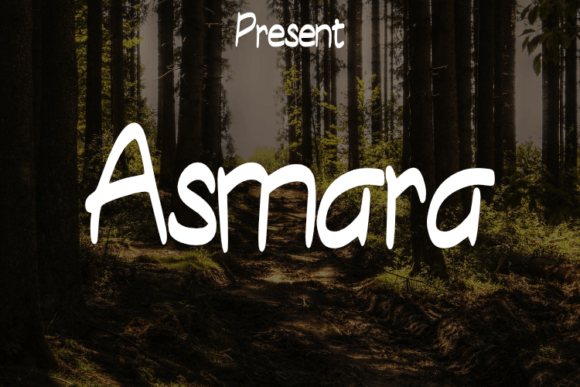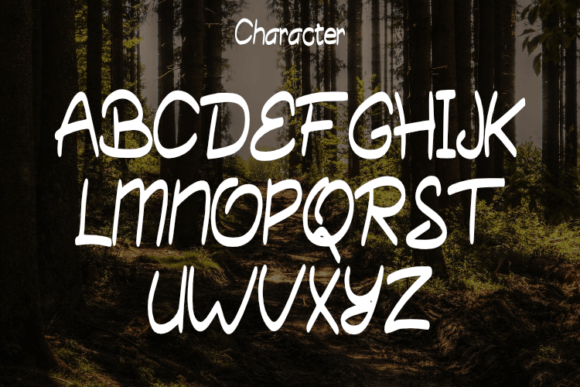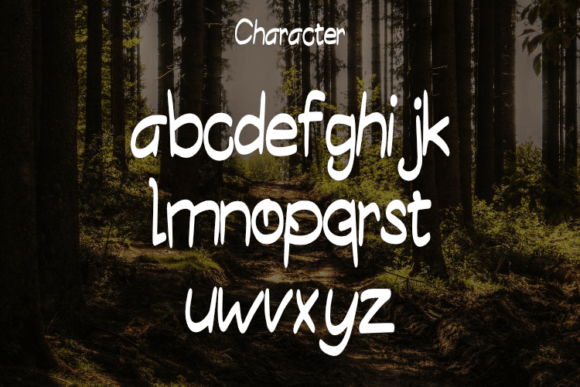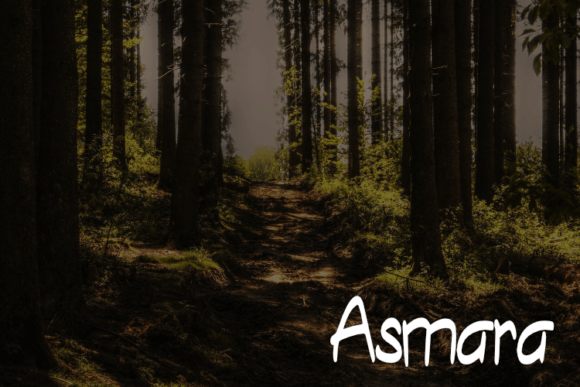
About Asmara Font
**Asmara** is a captivating script typeface characterized by its simple yet modern style. Its sleek design and elegant curves make it an excellent choice for projects that require a touch of sophistication and luxury. Whether you’re creating an elegant and luxurious logo, designing book or movie titles, working on fashion brands, magazines, clothing, or crafting inspirational quotes, **Asmara** adds an air of refinement and grace to your designs, making them effortlessly chic and stylish.
**Simple Elegance**: **Asmara** embodies the essence of simple elegance. Its clean and minimalist style exudes a sense of sophistication and refinement. The font’s graceful letterforms and smooth lines create a harmonious and balanced look, ensuring it appears both modern and timeless. Its simplicity is a key element that enhances the overall elegance of the text, making it visually appealing and classy.
**Modern Appeal**: While **Asmara** embraces a classic elegance, it also possesses a modern appeal. Its contemporary design elements give it a fresh and current look, making it suitable for modern design trends. The font strikes a perfect balance between classic beauty and modern aesthetics, ensuring it feels relevant and stylish in a variety of contexts.
**Versatile Application**: **Asmara** is versatile and adaptable, allowing it to complement a wide range of design projects. Whether used for logos, branding materials, book covers, movie titles, fashion-related designs, magazines, or inspirational quotes, the font seamlessly integrates into different applications. Its ability to enhance various design elements makes it a versatile choice for creative projects, ensuring a cohesive and polished result.
**Elegant and Luxurious Aura**: **Asmara** exudes an elegant and luxurious aura, elevating the overall perception of your designs. Its refined and graceful appearance gives off a sense of opulence and sophistication, making it perfect for projects that demand a touch of luxury. The font’s elegant and luxurious aura adds a premium quality to your designs, making them stand out with a sense of exclusivity and style.
In summary, **Asmara** is more than just a font; it’s a symbol of timeless elegance and modern sophistication. Its simple yet refined style, modern appeal, versatile application, and elegant aura make it a valuable asset for designers. By incorporating **Asmara** into your projects, you can infuse them with a touch of class and luxury, ensuring your designs exude sophistication and style. Let **Asmara** be the elegant and luxurious companion that enhances your creative endeavors, making them truly exceptional and unforgettable.